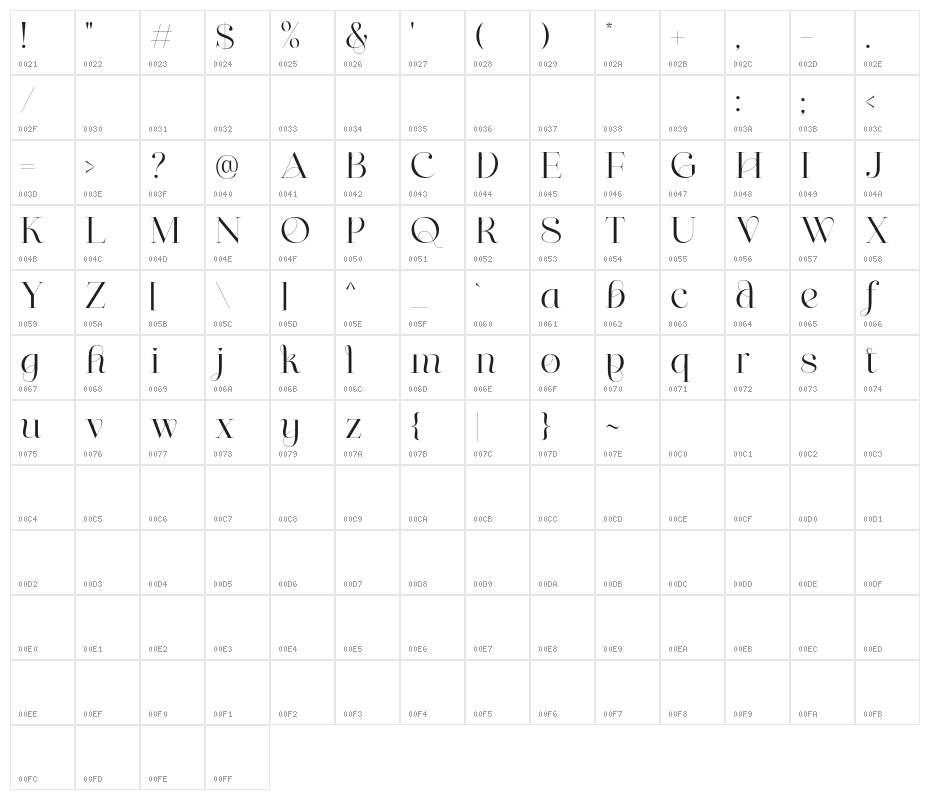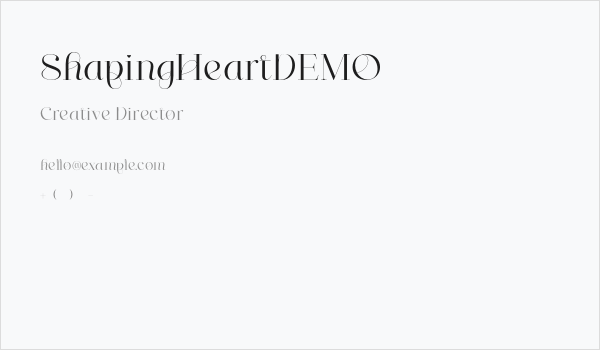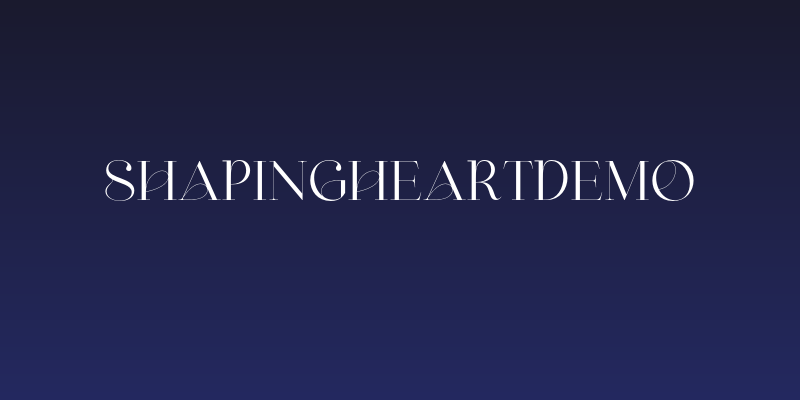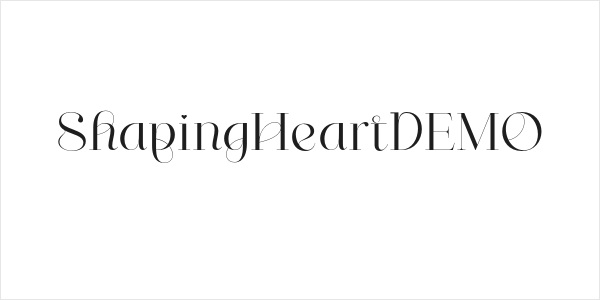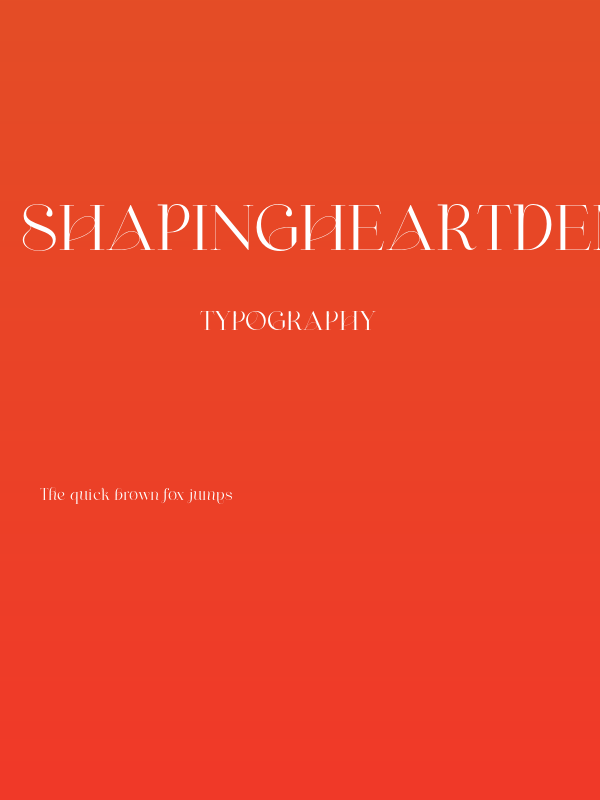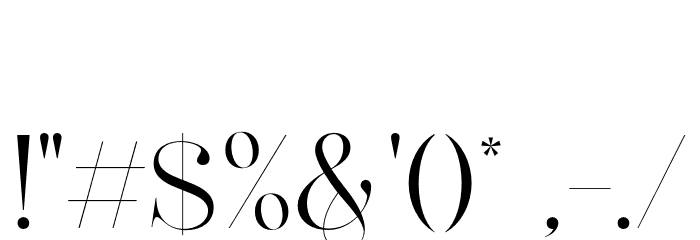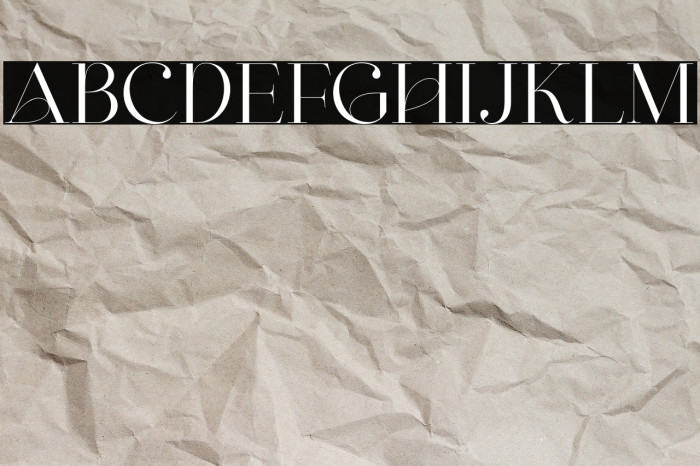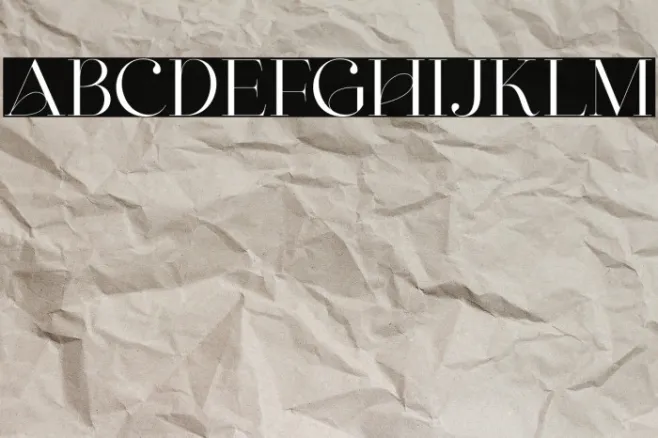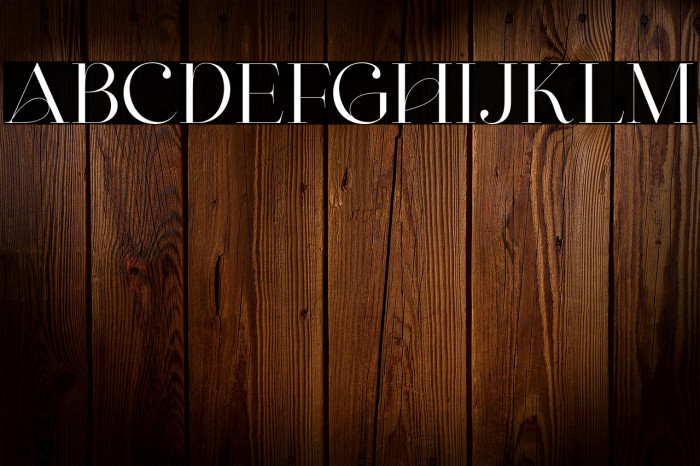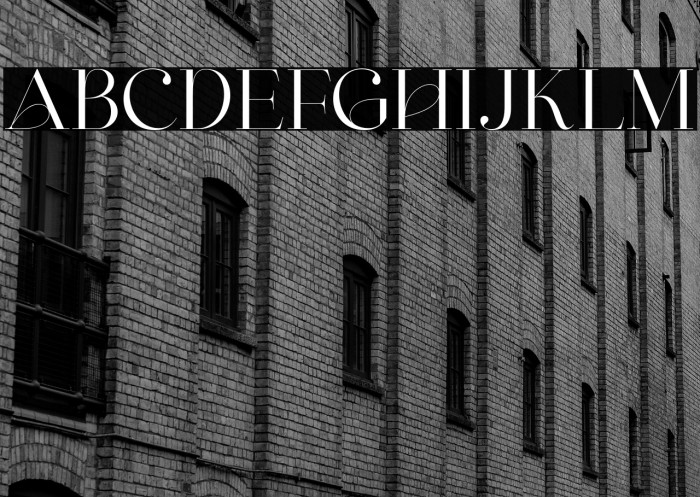
ShapingHeartDEMO Font
ShapingHeartDEMO Description
This font features an elegant and sophisticated design with a modern twist. The characters are crafted with high contrast between thick and thin strokes, giving it a refined and stylish appearance. The uppercase letters exhibit a graceful flair, with some incorporating unique loops and curves that add a decorative touch. The lowercase letters maintain a consistent style, complementing the uppercase with their own subtle embellishments. The numerals and special characters are designed to match the overall aesthetic, ensuring a cohesive look across all text. This font is perfect for projects that require a touch of elegance and sophistication.
| Proposed Projects | Ideal for wedding invitations, luxury branding, fashion magazines, and elegant packaging. |